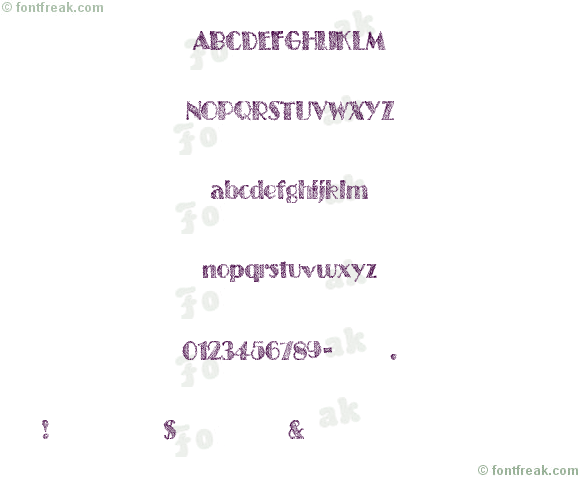
TwentySomething
The TwentySomething font by XEROGRAPHER FONTS is a unique display typeface that captures the essence of youthful creativity and modern aesthetics. Released in 2015, this font is characterized by its playful, slightly irregular strokes that lend a handcrafted feel, making it an excellent choice for projects that aim to convey personality and charm. The design features a medium stroke weight with soft, rounded edges, providing a friendly and approachable appearance. Its spacing is well-balanced, enhancing readability while maintaining a sense of artistic flair.
Ideal for a variety of applications, the TwentySomething font shines in contexts such as wedding invitations, where its whimsical nature can add a touch of romance; movie posters, where it can help convey a film's youthful spirit; and restaurant menus, particularly for casual dining establishments that wish to create a relaxed and inviting atmosphere. Additionally, it serves well in branding materials for small businesses, especially those targeting a younger demographic, as it communicates a sense of fun and creativity.
What sets the TwentySomething font apart is its blend of modern style and a handcrafted aesthetic, making it an ideal choice for projects that require a personal touch. Its ability to evoke a sense of warmth and creativity ensures that it will stand out in any design, making it a valuable addition to any typographer's toolkit.